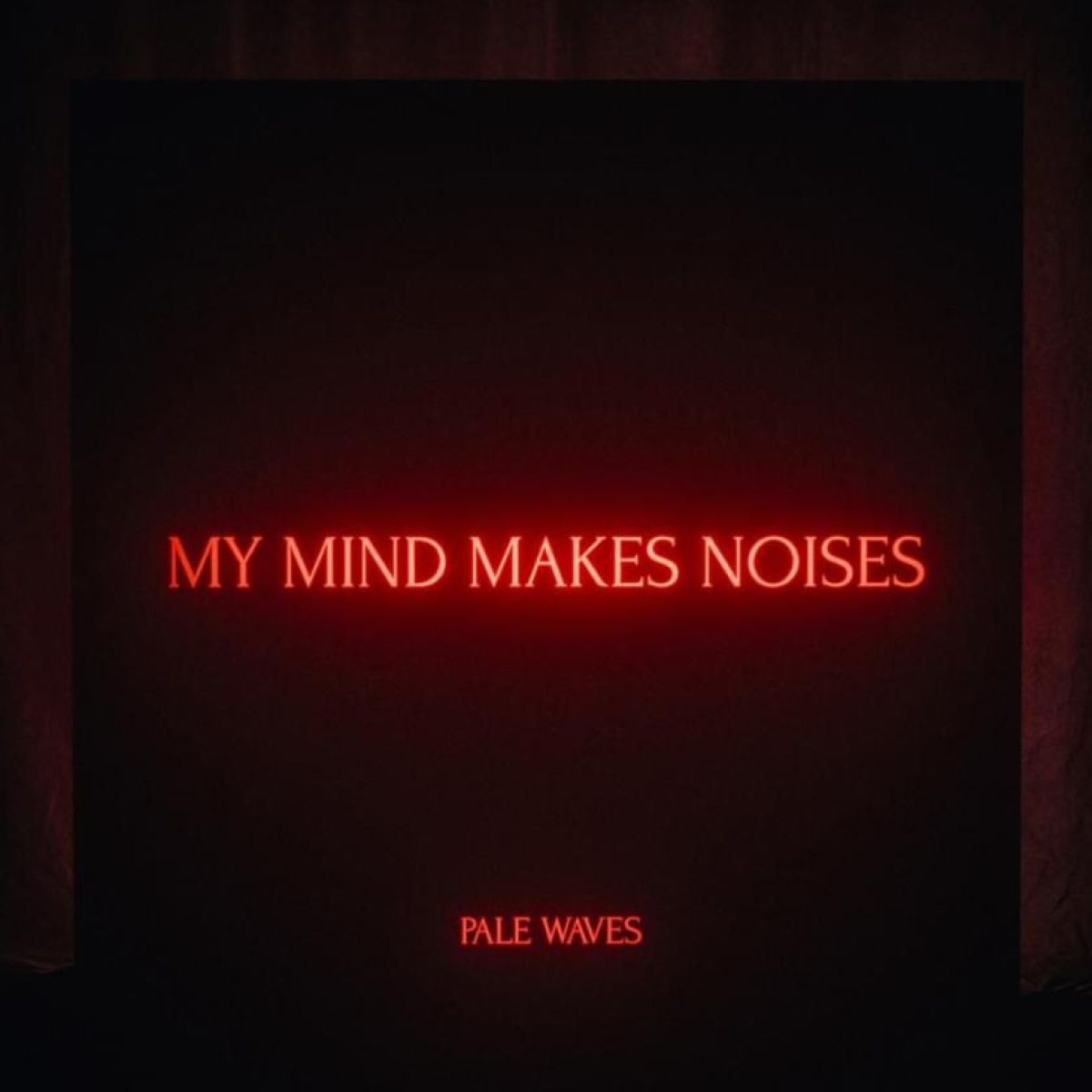
Pale Waves Font
Fonts in UseMy Mind Makes Noises is the debut studio album by the English indie pop band Pale Waves, released in 2018. The album features 14 tracks, including the singles "There's a Honey," "Television Romance," and "Kiss."